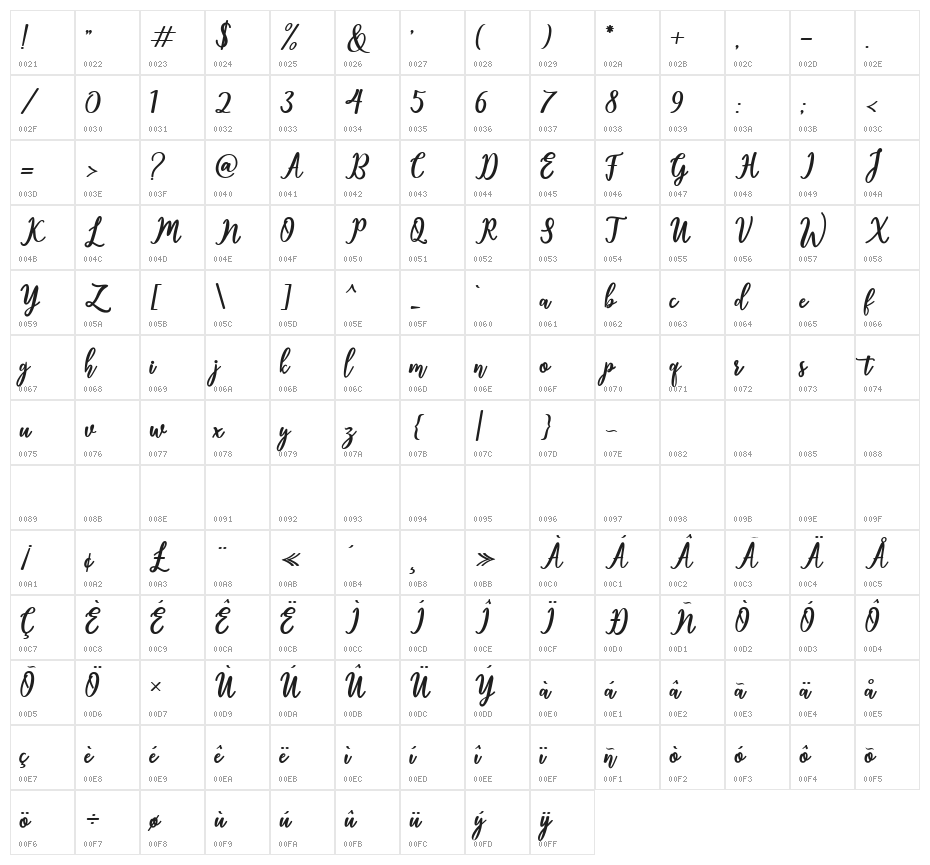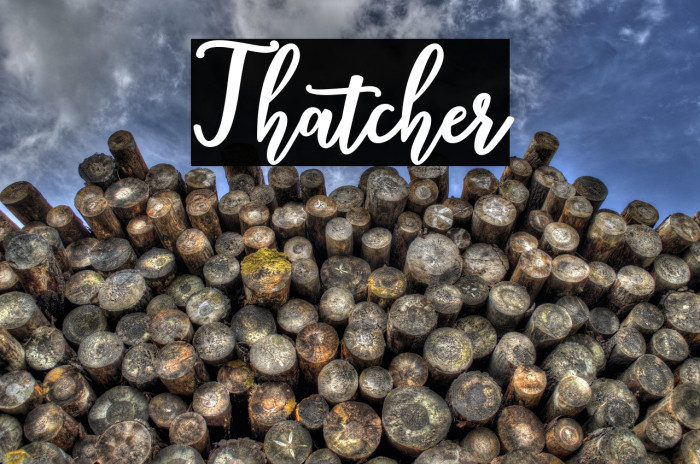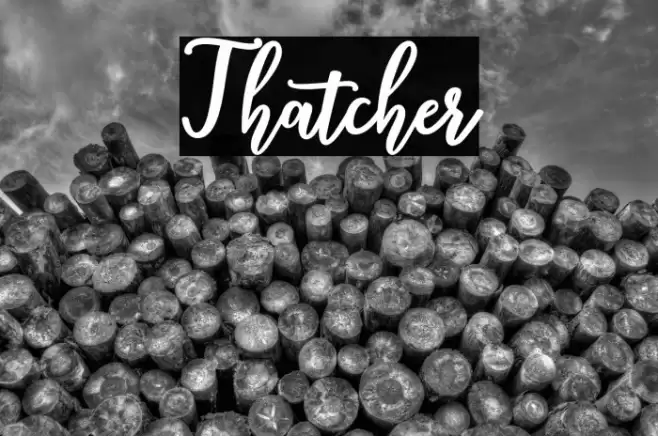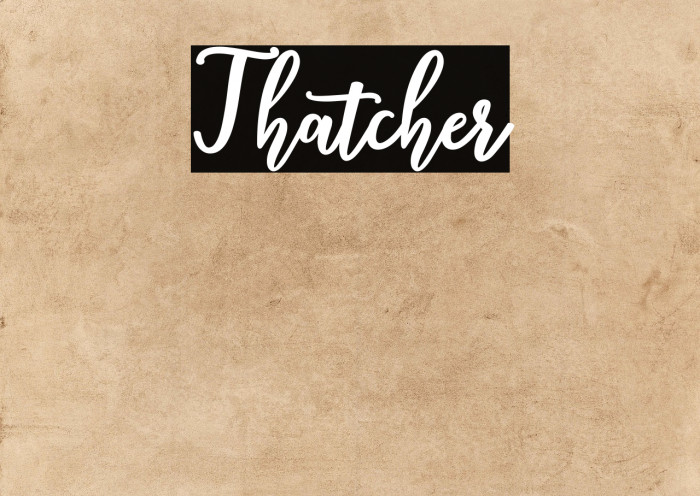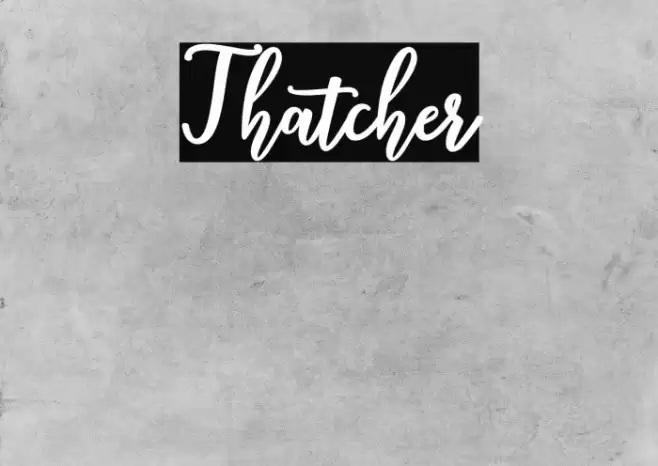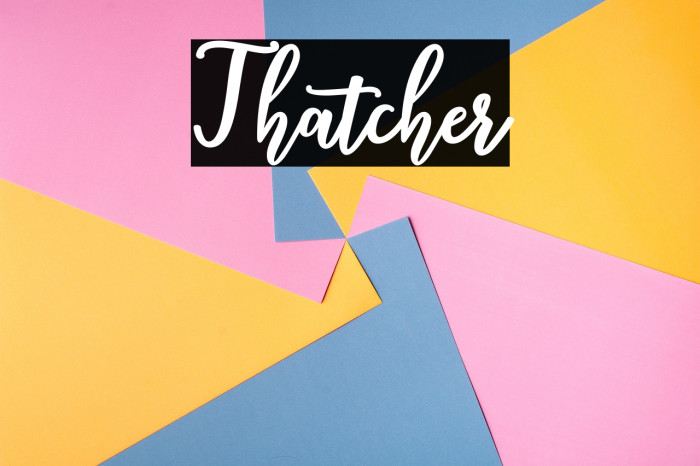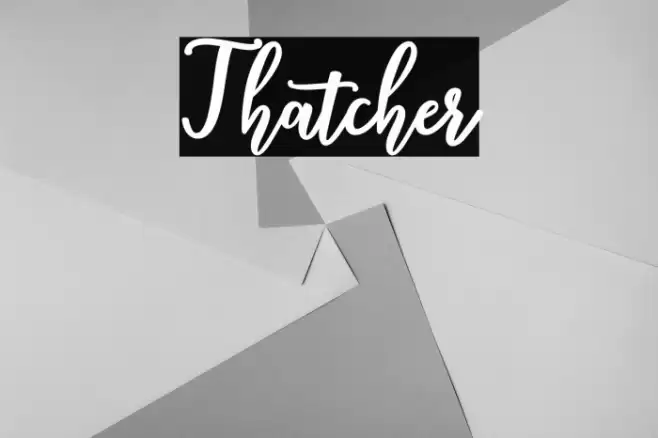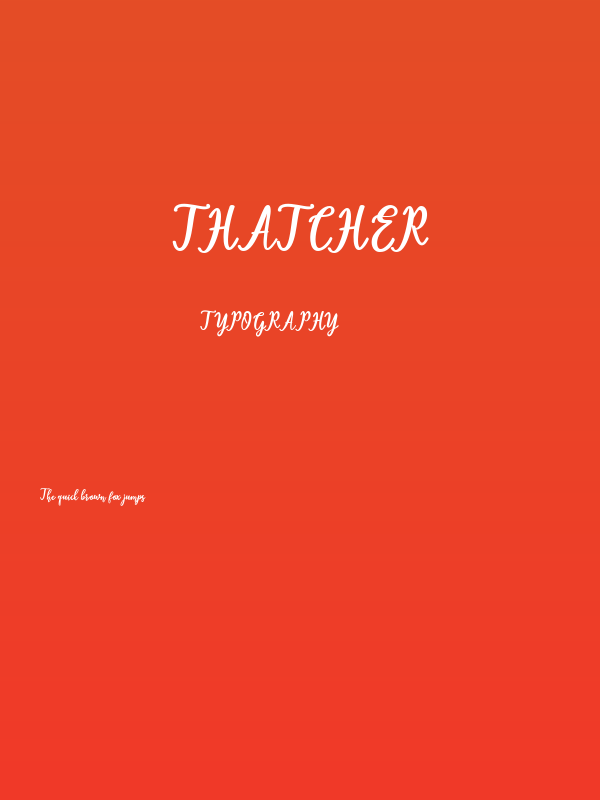
Thatcher Font
Thatcher Description
This font exudes a lively and elegant script style, characterized by its fluid and connected letterforms. The uppercase letters are bold and dynamic, with sweeping curves and a sense of movement that adds a touch of sophistication. The lowercase letters maintain a consistent flow, enhancing readability while preserving the artistic flair. Numbers are equally stylish, integrating seamlessly with the overall design. Special characters are thoughtfully crafted, ensuring versatility across various applications. The font's smooth curves and balanced proportions make it suitable for projects requiring a personal and expressive touch.